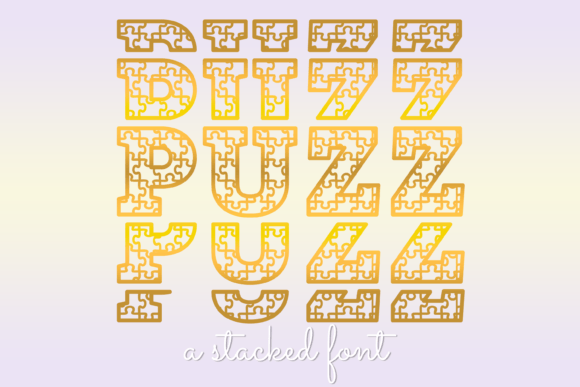
Dive into the enchanting world of Puzz, a captivating decorative font family that will ignite your creativity and elevate your designs to new heights. Handcrafted by the skilled artisans at WADLEN, this extraordinary font is meticulously designed to bring a touch of whimsy and wonder to your crafting endeavors.
Unleash your imagination with Puzz, the perfect font for expressing your unique style. Whether you're a seasoned designer seeking to add an alluring touch to your projects or a budding crafter eager to explore the realm of DIY creations, Puzz will be your loyal companion, guiding you towards masterpieces that will captivate all who lay eyes upon them.
Step into a world where intricate details dance upon the canvas, where every letter is a work of art. Puzz's enchanting curves and playful flourishes will transform your designs into captivating masterpieces. Its versatility knows no bounds, seamlessly adapting to a myriad of projects, from custom designs to heartwarming DIY crafts.
With Puzz, you possess the power to weave tales that come to life. Each character is a brushstroke in your symphony of creativity, inviting you to paint vivid images and ignite emotions. Experience the sheer joy of self-expression as you turn your visions into tangible works of art.